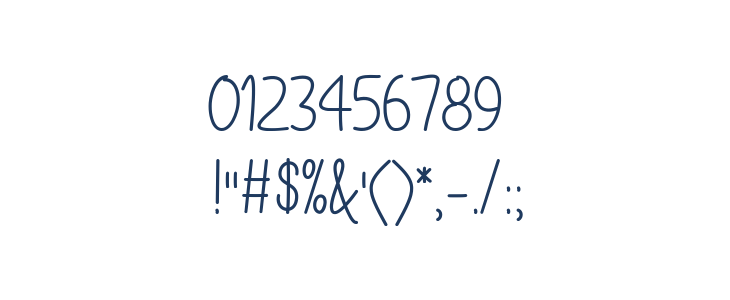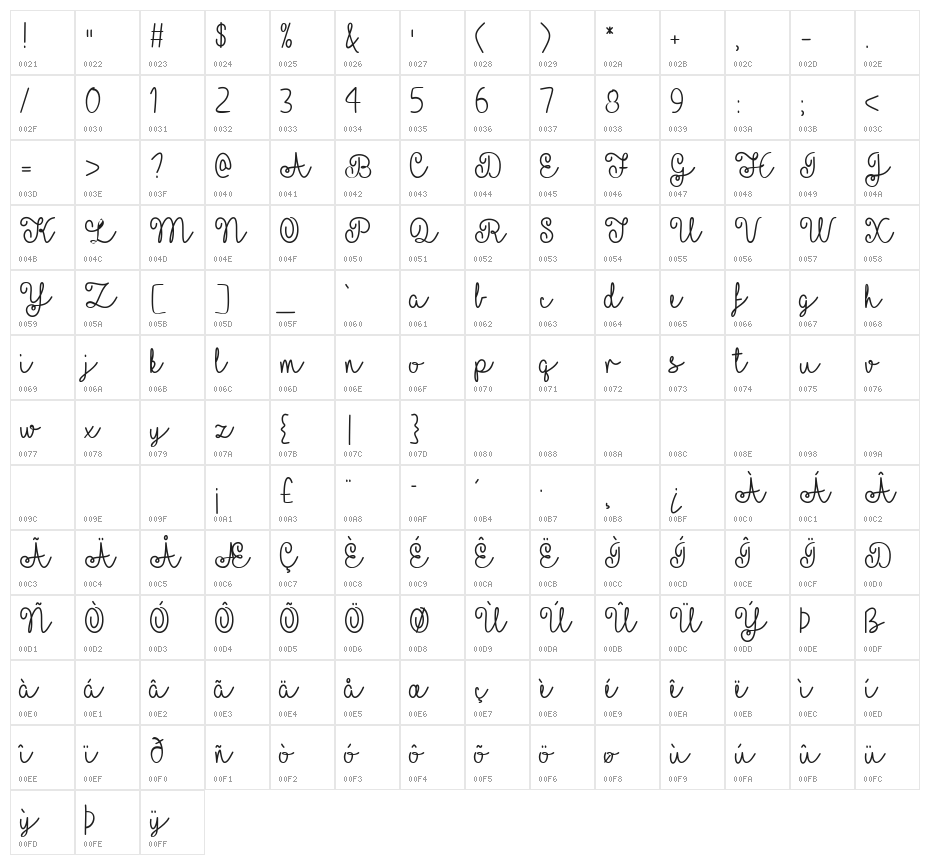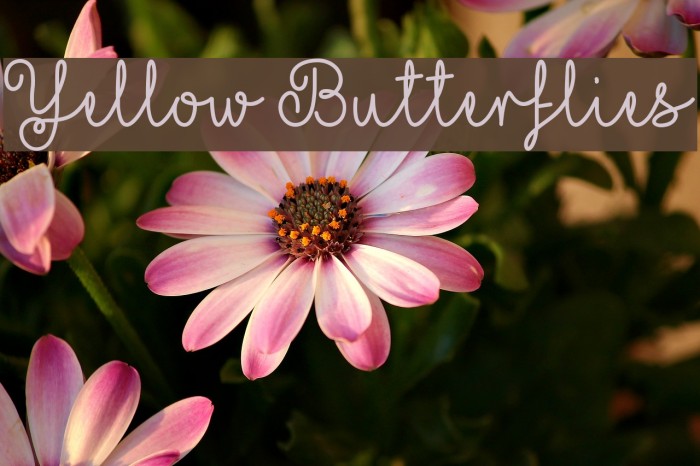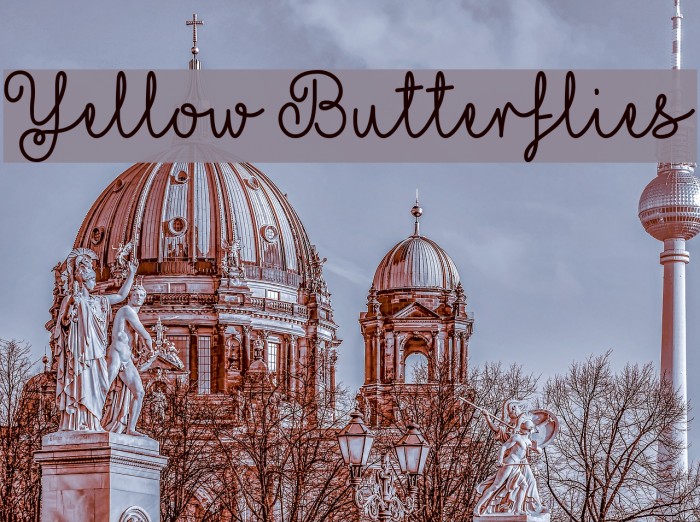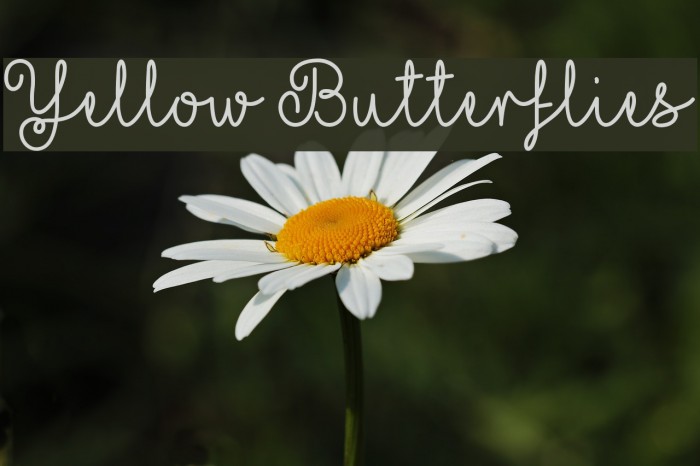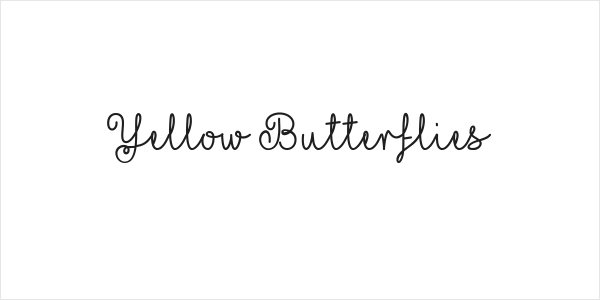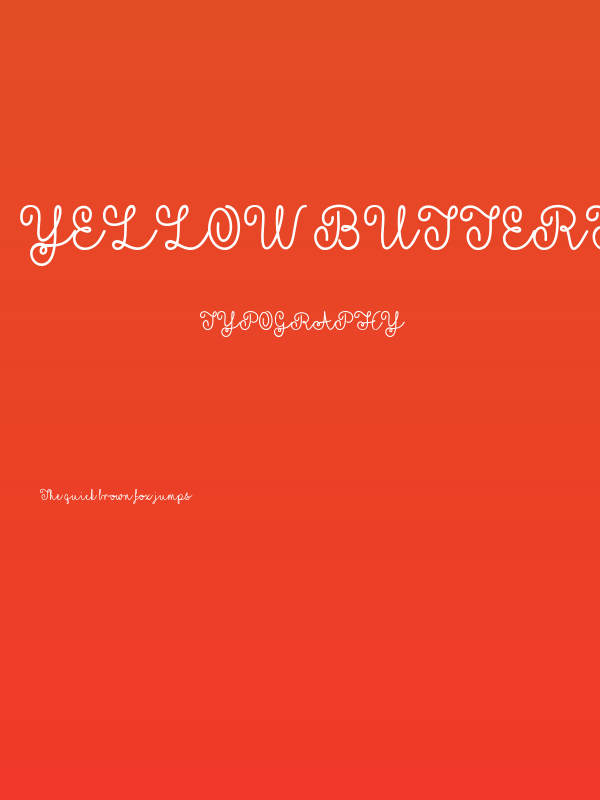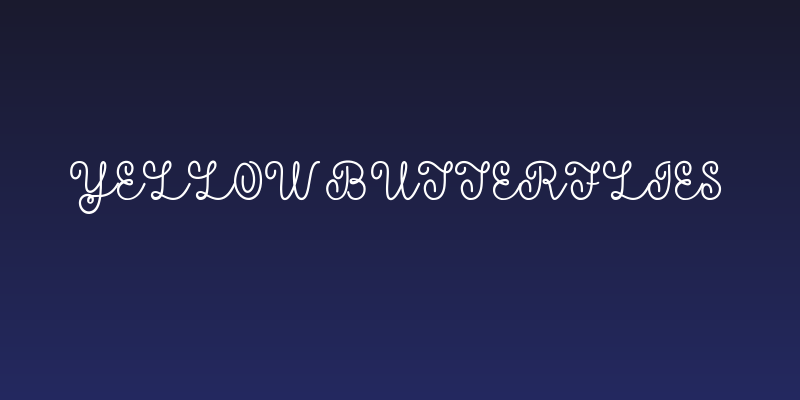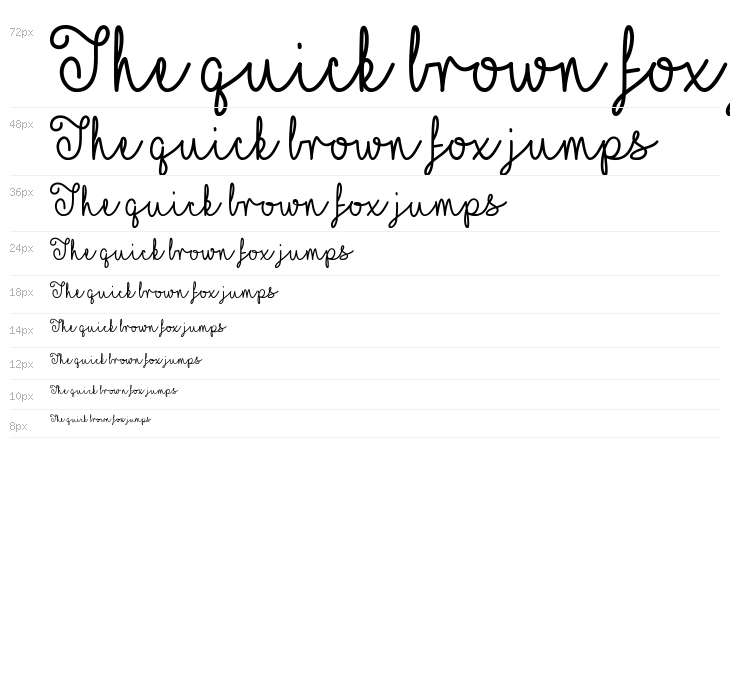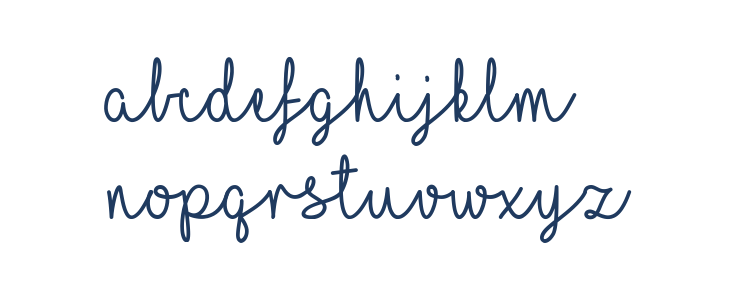
Yellow Butterflies Font
Yellow Butterflies Description
This font features a playful and whimsical script style with a handwritten appearance. The uppercase letters are characterized by elegant loops and curves, giving them a decorative flair. The lowercase letters maintain a consistent flow, enhancing readability while retaining a casual, friendly vibe. Numbers are clear and legible, matching the overall style of the alphabet. Special characters are designed with the same playful touch, ensuring they blend seamlessly with the rest of the font. The strokes are smooth and consistent, providing a harmonious look across all characters.